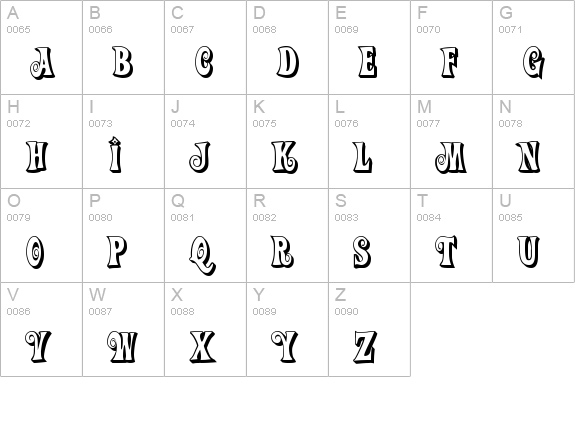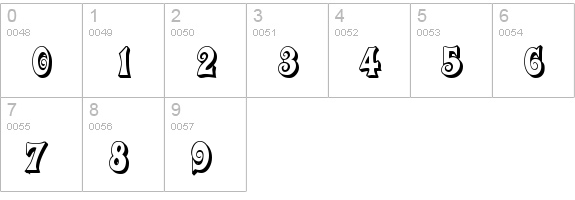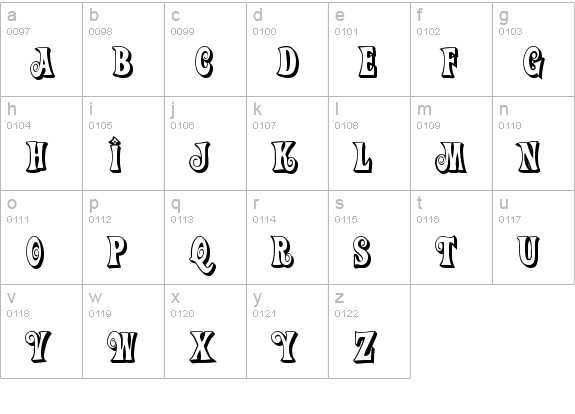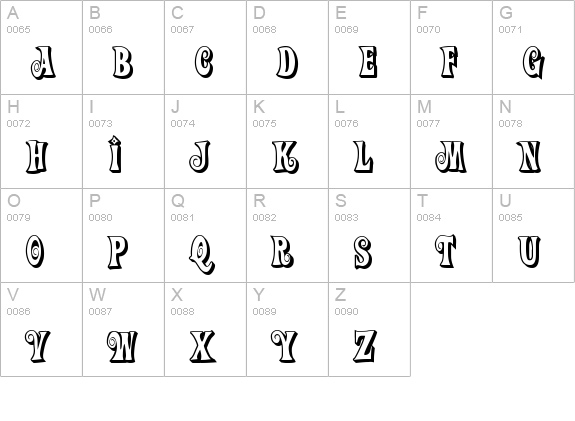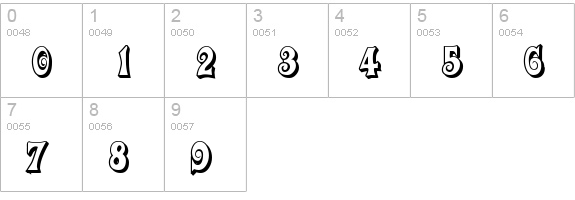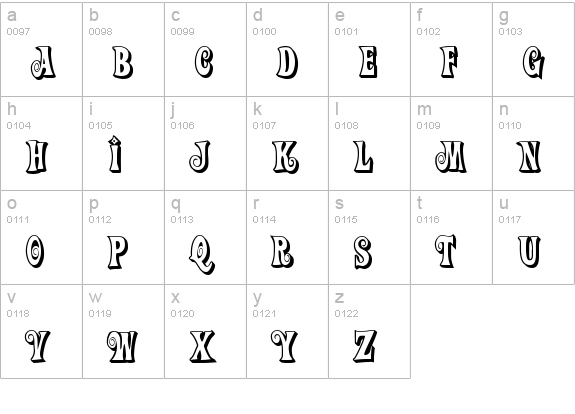
Action Is 3D JL Font Details
Action Is 3D JL font is a bold and energetic typeface that is perfect for adding a dynamic touch to any design project. Its three-dimensional appearance adds depth and dimension, making it stand out from the crowd. Whether you're creating a logo, poster, or website, this font will instantly grab attention and make a lasting impression. With its sharp edges and strong lines, Action Is 3D JL exudes power and strength. It is ideal for projects that require a bold and assertive look, such as action movie titles, sports graphics, or gaming logos. The unique 3D effect adds an extra layer of excitement and intensity, making it the perfect choice for projects that need to make a statement. But what sets Action Is 3D JL font apart is that it is not only visually striking but also freely available to download at FontsMarket.com. This means that you can use this stunning font in your designs without any cost, making it an incredibly valuable resource for designers and creatives. The versatility of Action Is 3D JL font allows it to be used in a wide range of projects. Its bold and dynamic nature makes it suitable for both digital and print designs. From movie posters to website headers, this font will bring your design to life and captivate your audience. So, if you're looking for a visually impactful and powerful font that is also free, look no further than Action Is 3D JL font. Download it now from FontsMarket.com and unleash its potential in your next project.